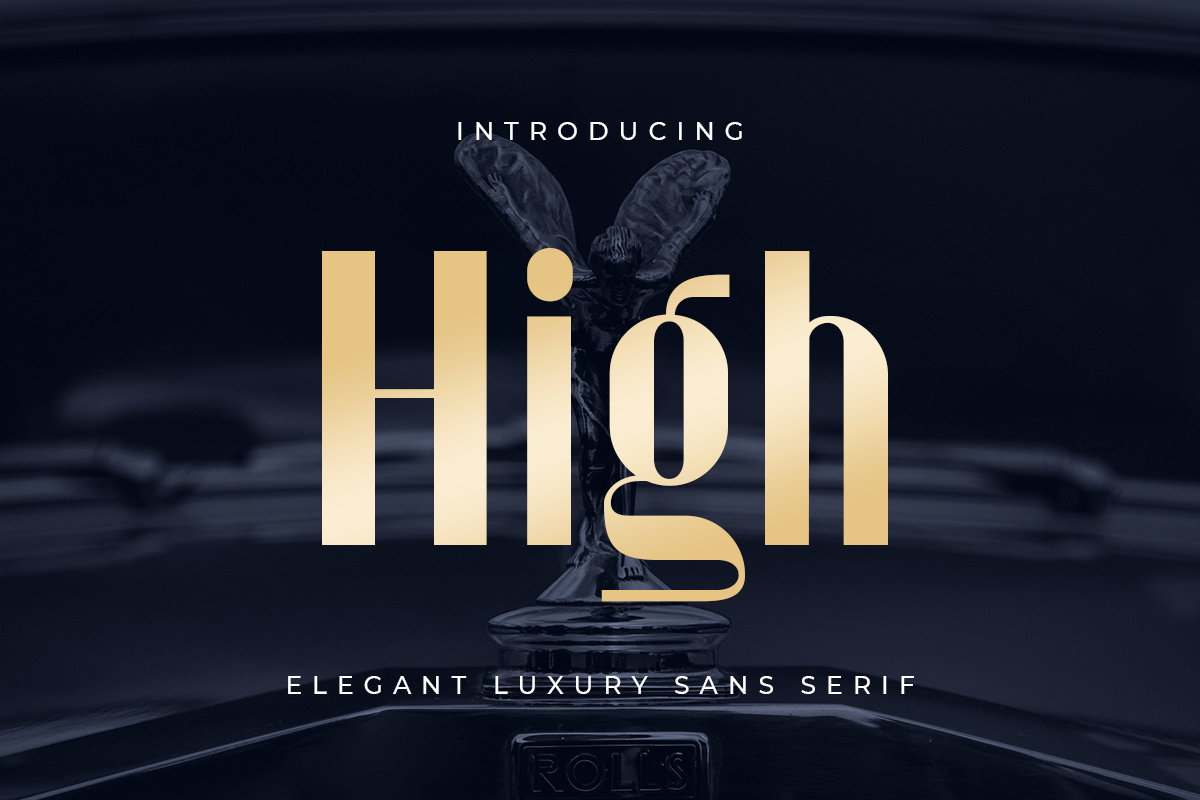
High Sans Serif
New Elegant Luxury Sans Serif that we created special for elegant projects with extra ligature and alternates in unique shape will be ready to add value of your brand. It so nice to leverage designer or product owner that need solutions to make their design look more elegant and luxury. And specially for High font, We prepared any ligatures and any alternate characters to help you create unlimited variations for your creative needs.
High Sans serif font ready with:
Any options to get creative variations (combination of Alternate and Ligatures)
Preview as a inspirations that you can do with High Sans Serif font